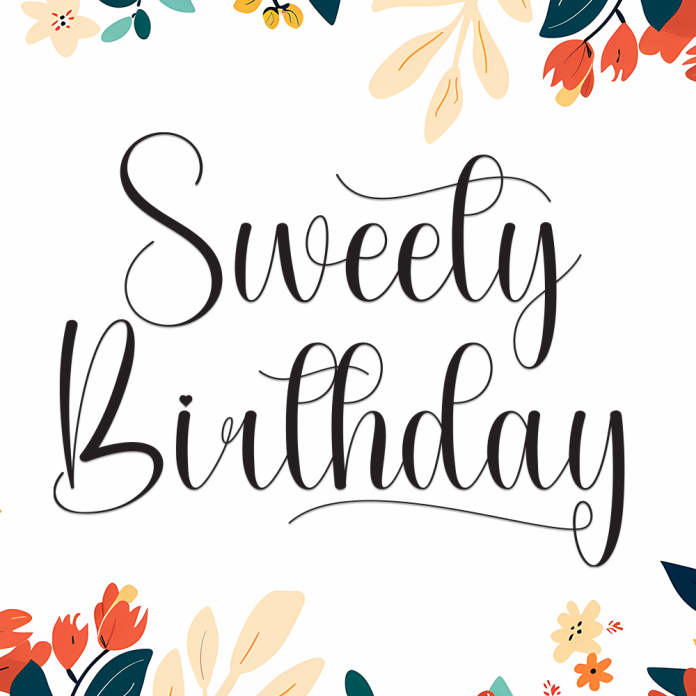
Sweety Birthday is a sweet and playful handwriting font that captures the happiness of a celebration. With its cheerful curves and lively strokes, this font is perfect for birthday cards, party invitations, and any design that needs a sprinkle of joy.
Ideal for kids' party designs, social media posts, gift tags, and fun branding, Sweety Birthday brings out the festive spirit in a soft and friendly way.
Cute and cheerful handwritten style
Rounded, bubbly letterforms full of personality
Perfect for birthdays, celebrations, crafts, and happy designs
Celebrate every moment with Sweety Birthday, the handwriting font made for smiles and sweet memories.